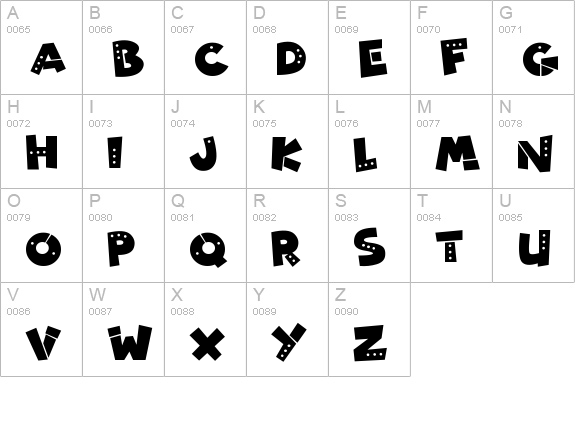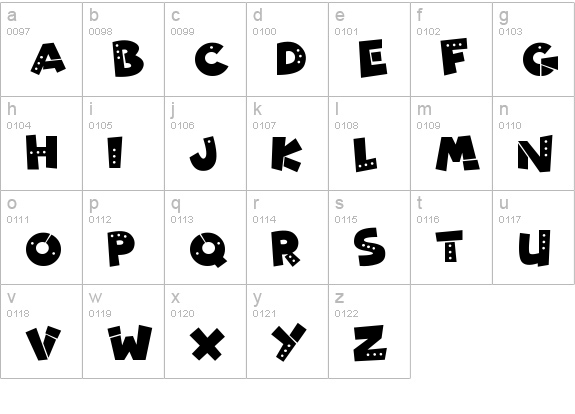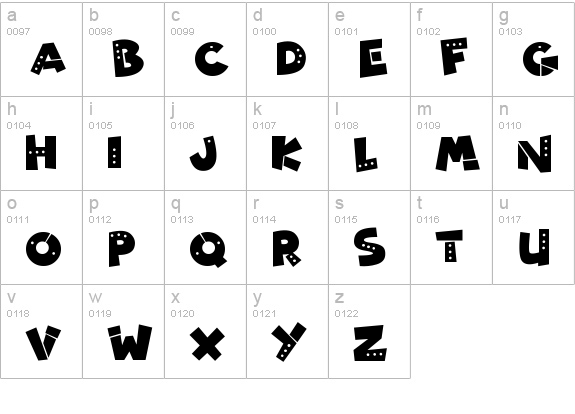
Patchy Robots Font Details
Patchy Robots is a donationware font in the Fancy > Comic category, designed by Darrell Flood. It has been downloaded 88 times and is available for Windows, Mac and Linux.
Patchy Robots font is a whimsical and playful typeface that exudes a futuristic and robotic vibe. Each character is designed with a unique patchwork texture, adding a touch of creativity and individuality to your projects. With its bold and eye-catching appearance, Patchy Robots font is perfect for headlines, posters, and branding materials that aim to stand out.